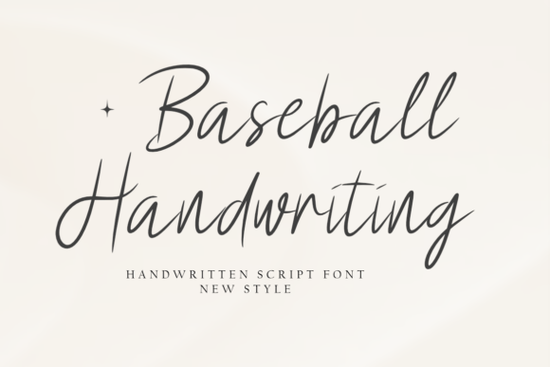
When it comes to adding a personal and inviting touch to your designs, the Baseball Handwriting Font is a fantastic choice. This charming and flowing handwritten font has a sweet cursive style that brings warmth and joy to any project. Whether you're working on branding, logos, or wedding invitations, this typeface adds an elegant yet relaxed feel.
Why Choose Baseball Handwriting Font for Your Projects?
The Baseball Handwriting Font stands out with its natural, hand-drawn look. It’s perfect for those who want their designs to have a personal and authentic feel. The font’s versatility makes it ideal for a wide range of creative projects, from greeting cards to fashion designs and marketing materials.
How Can You Use Baseball Handwriting Font in Branding?
Branding is all about creating a unique and memorable identity. Using the Baseball Handwriting Font can help you achieve just that. Its warm and joyful style can make your brand more relatable and appealing. Consider using it for your logo, business cards, and even your website to create a cohesive and inviting look.
Perfect for Wedding Invitations and Greeting Cards
Wedding invitations and greeting cards are all about expressing love and joy. The Baseball Handwriting Font adds a romantic and elegant touch to these special messages. Its cursive style and flowing lines make it perfect for creating beautiful and heartfelt designs that your recipients will cherish.
Enhancing Fashion Designs and Lookbooks
Fashion is all about creativity and expression. The Baseball Handwriting Font can add a unique and stylish element to your fashion designs and lookbooks. Use it for labels, tags, and even as part of your design elements to give your creations a personal and artistic touch.
Marketing Materials That Stand Out
Effective marketing materials need to grab attention and leave a lasting impression. The Baseball Handwriting Font can help you do just that. Its elegant and relaxed style can make your brochures, flyers, and social media graphics stand out. This font’s versatility allows you to use it in various ways, from headlines to body text, making your marketing efforts more engaging.
Comparing with Other Script Fonts
While the Baseball Handwriting Font is a standout choice, it’s always good to explore other options. For instance, the Mafuinka Font offers a similar cursive style but with a more formal and sophisticated feel. If you’re looking for something with a summer vibe, the Ordinary Summer Font might be a great alternative. For a more classic and timeless look, consider the Longmile Font.
Combining with Serif Fonts
To add more variety and contrast to your designs, you can pair the Baseball Handwriting Font with a serif font. A good option is the Bright Font, which provides a clean and modern contrast. This combination can create a balanced and visually appealing design, especially for projects like book covers and magazine layouts.
Practical Tips for Using Baseball Handwriting Font
- Test Different Sizes: Experiment with different font sizes to find the best fit for your design. Smaller sizes can work well for subtle details, while larger sizes can make a bold statement.
- Pair with Complementary Fonts: Combine the Baseball Handwriting Font with a clean, sans-serif or serif font to create a balanced and professional look.
- Use for Headlines and Titles: This font works well for headlines and titles, adding a personal and inviting touch to your designs.
- Keep It Simple: Avoid overusing the font in a single design. Use it sparingly to highlight key elements and maintain readability.